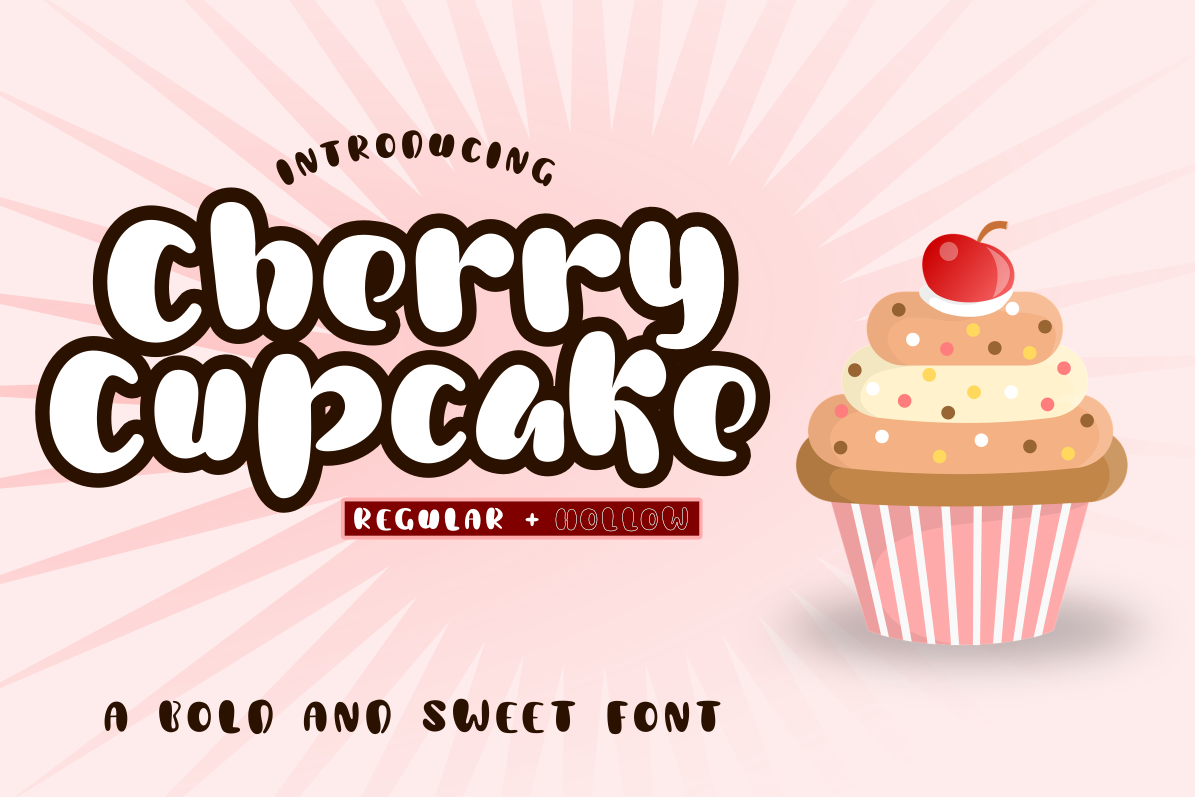
Cherry Cupcake
Cherry Cupcake Hollow
Introducing : Cherry Cupcake Font
Cherry Cupcake Font is a bold, sweet, cute, fun, and quirky but versatile for any kind of usage.
Use it for making birthday card, social media post, packaging and logo of your product, t-shirt design, kids stuff, promotion stuff, and much more!